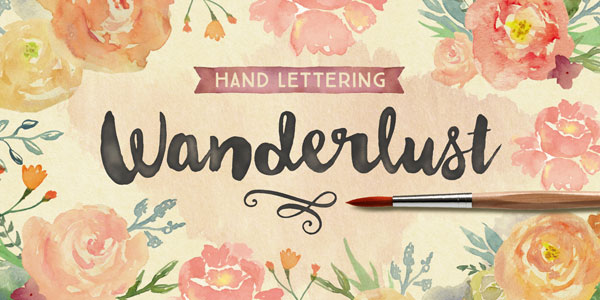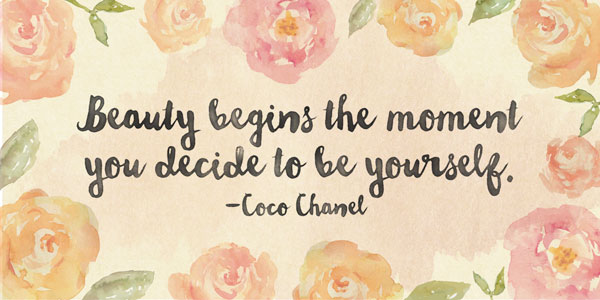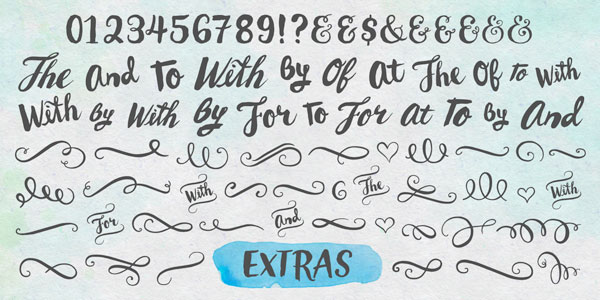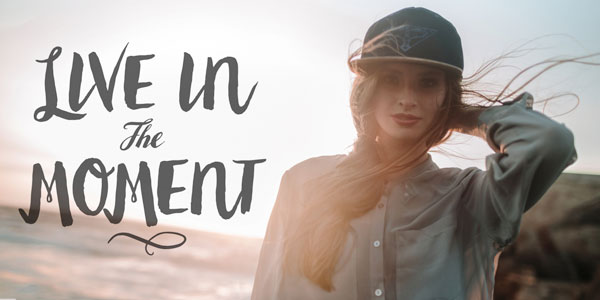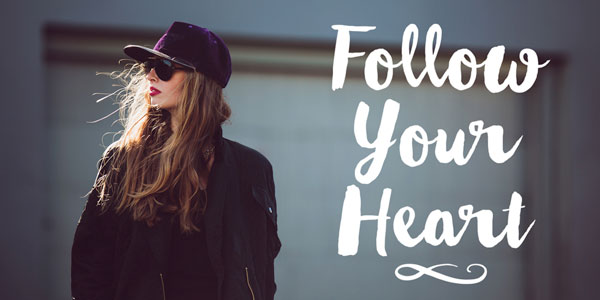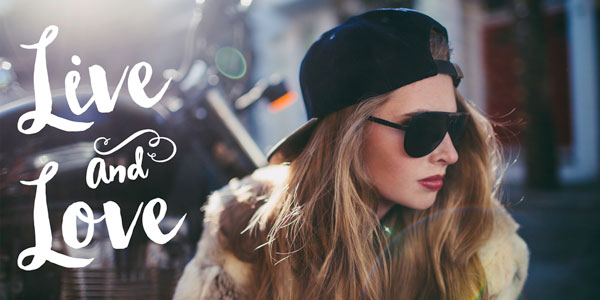
Wanderlust letters, a beautifully hand painted script typeface by Cindy Kinash of foundry Cultivated Mind.
Cindy Kinash, a Canadian apparel graphic designer as well as type designer has created Wanderlust Letters, a beautifully hand painted script typeface for foundry Cultivated Mind. In addition to the font, Wanderlust Letters comes with a huge set of extras consisting of numerous banners, ornaments, and catchwords. Each letter and all extras have been carefully painted by hand to give your letterings a wonderful flow. The font is well suited for fashion, apparel, stationery, magazines, film, books, and marketing projects.